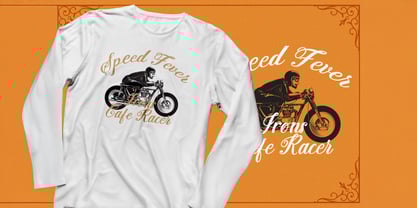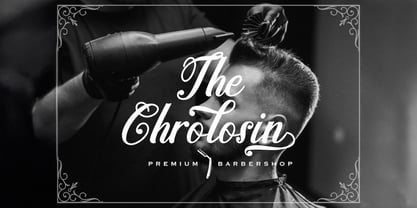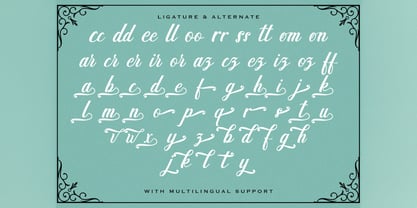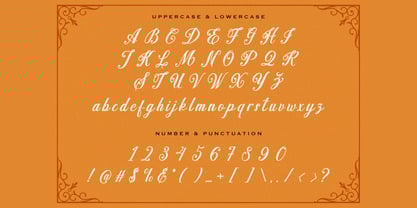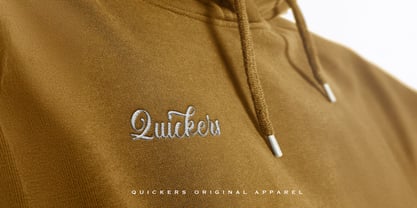
Madena Parlling
by Stringlabs Creative Studio
The Madena Parlling Font Family was designed by Virgiawan Listanto and published by Stringlabs Creative Studio. Madena Parlling contains 1 styles. More about this family
Madena Parlling is a bold script font that effortlessly blends strength with elegance. With its confident curves, thick strokes, and stylish swashes, Madena Parlling brings a modern handwritten flair that’s perfect for making a statement with grace. It’s the ideal typeface for projects that call for both impact and style.